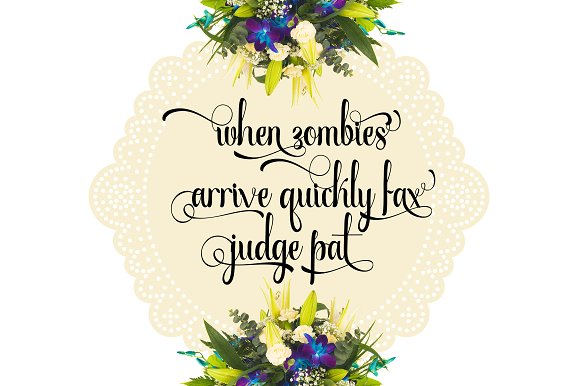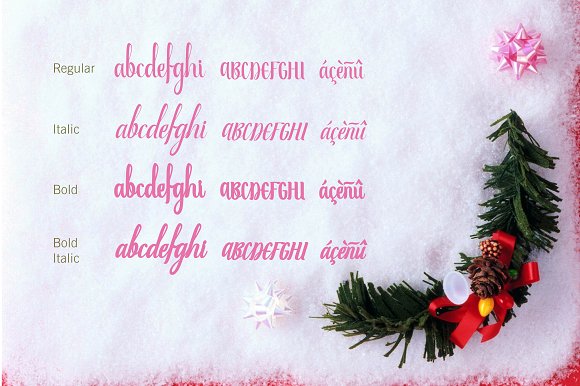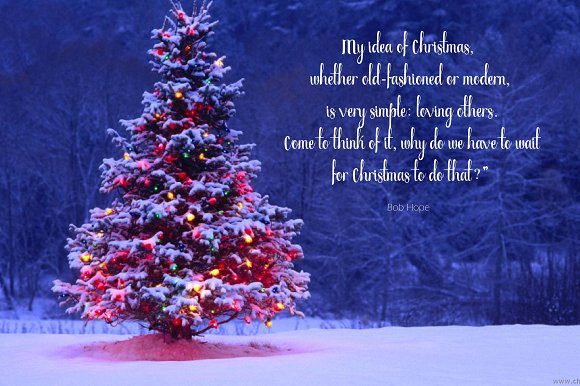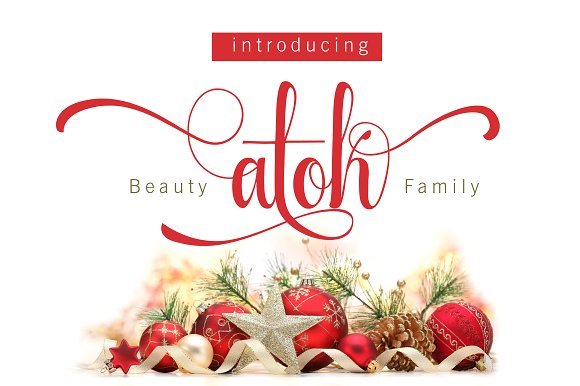
Introduction to Beauty Atok Font
Beauty Atok, a beautiful handwritten script.
It’s a fluid font that works well in many different types of projects This professional looking font is easy to read and works well for marketing & branding as well as craft projects.